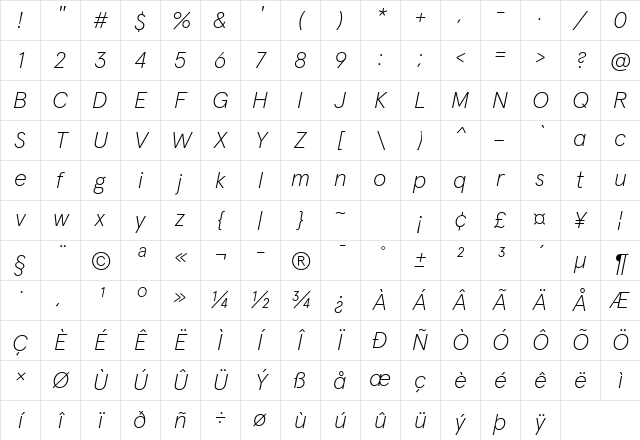
Apercu Pro ExtraLight Italic
Style: ExtraLight Italic
Foundry: Colophon Foundry
Designer: Colophon Foundry
Complete Apercu Pro ExtraLight Italic glyph index. Displaying only characters natively supported by Apercu Pro ExtraLight Italic font.
Design Context for Apercu Pro
Apercu Pro is a composed and adaptable typeface that performs quietly and consistently across a wide range of design contexts. The slanted form adds forward momentum and visual energy. Its slender proportions lend an understated elegance to any composition.